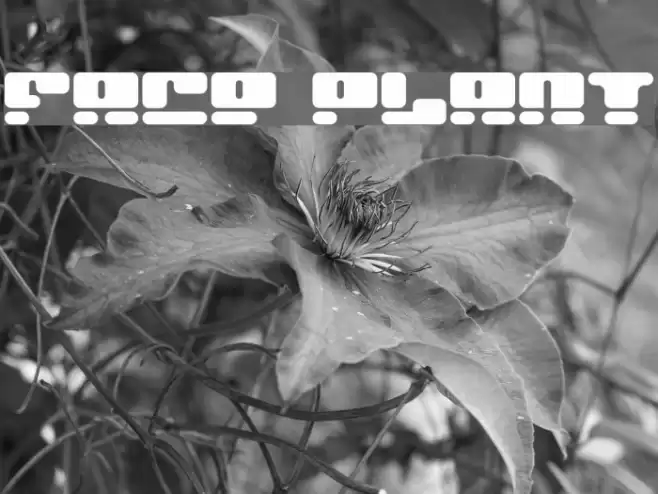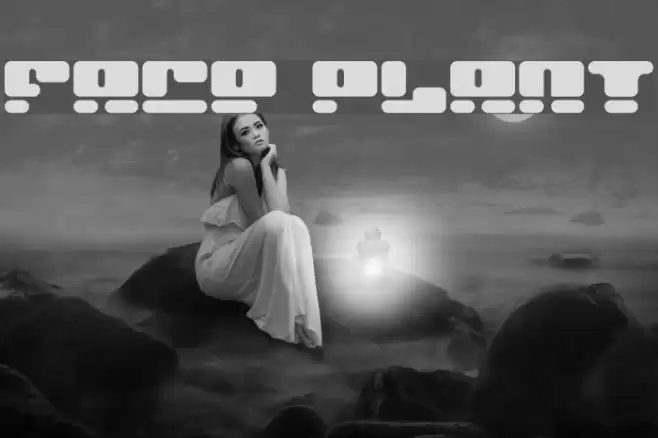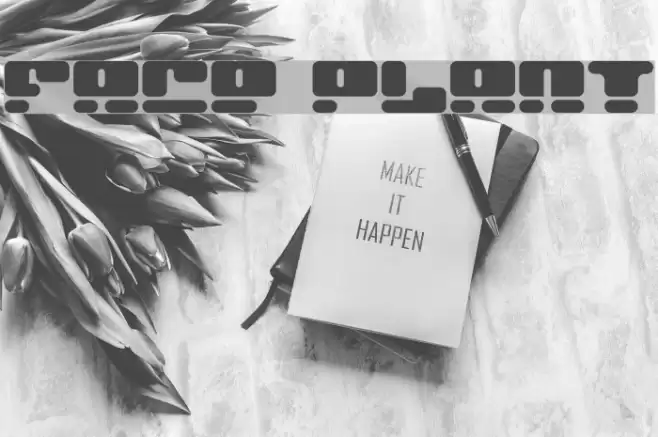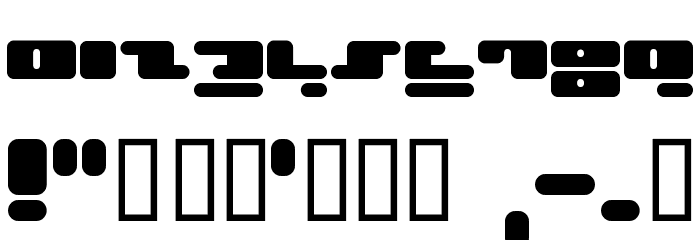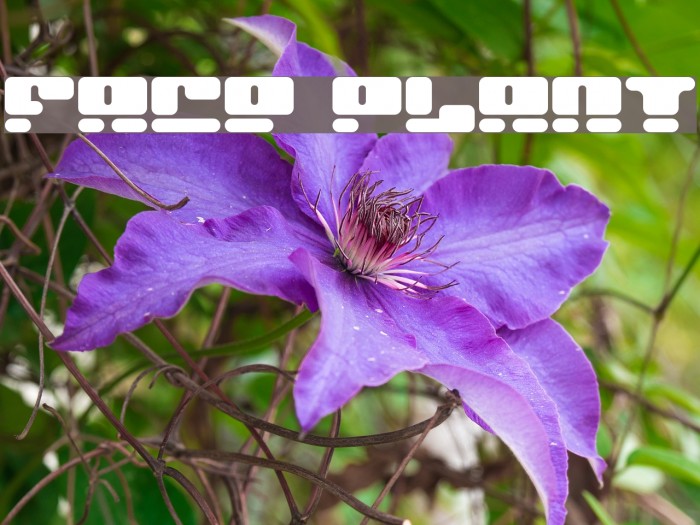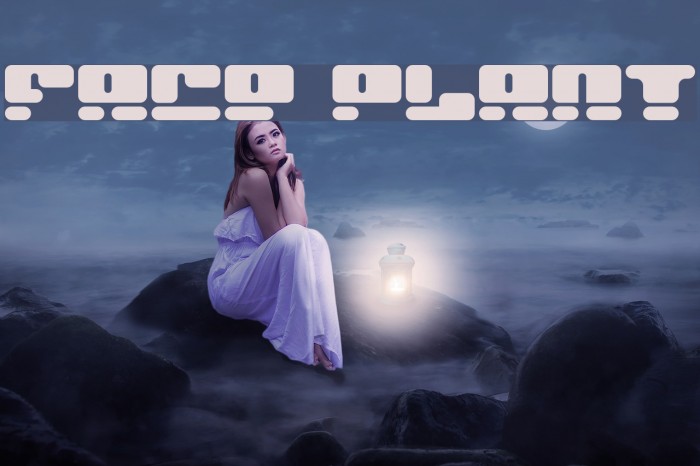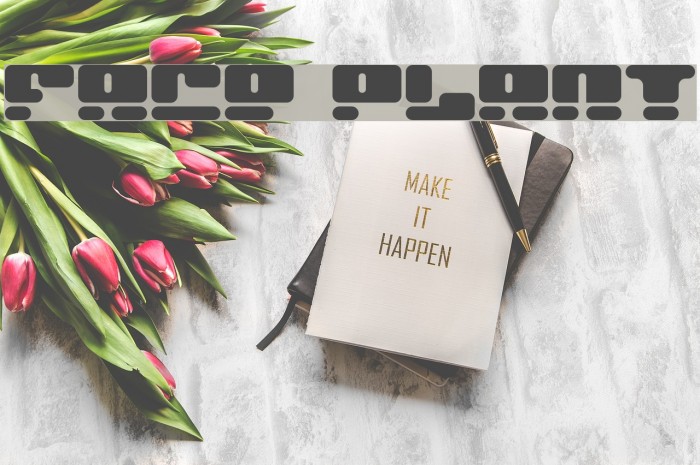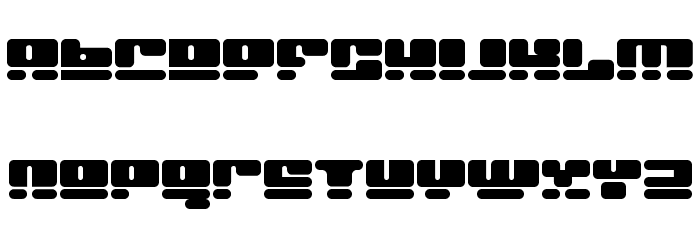
Face plant Font
Face plant Description
This font features a bold, geometric design with a futuristic and digital aesthetic. Each character is composed of thick, rounded shapes that create a sense of solidity and modernity. The uppercase and lowercase letters share a similar structure, enhancing the cohesive look of the typeface. The numbers and special characters maintain this style, ensuring uniformity across all glyphs. The font's unique appearance makes it stand out, with a playful yet structured form that is both eye-catching and versatile. Its boldness and distinctiveness make it ideal for projects that require a strong visual impact.
A bold, geometric font with a futuristic, digital aesthetic from Decorative fonts.
- Proposed Projects: Ideal for technology branding, video game titles, sci-fi posters, and digital media.
- Overall Style: Futuristic